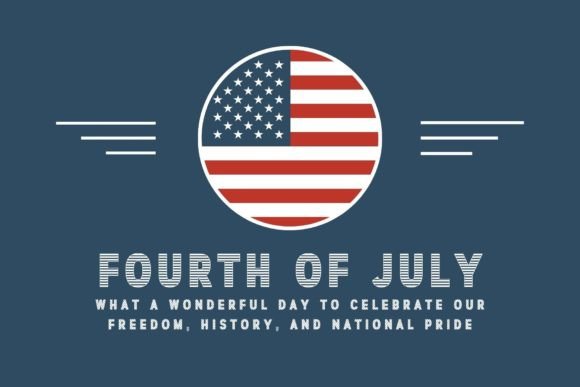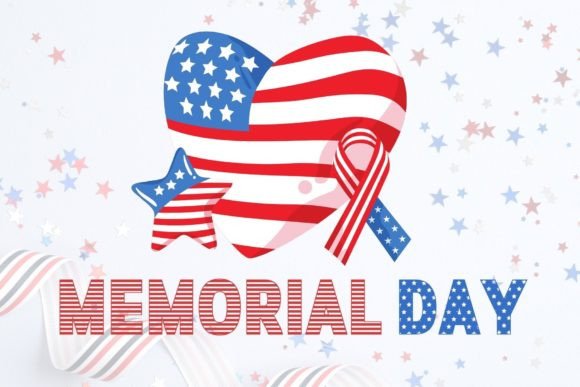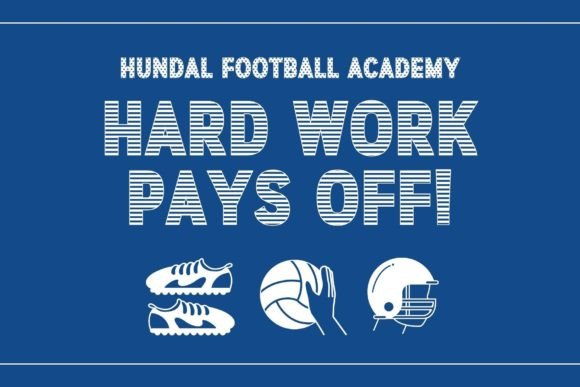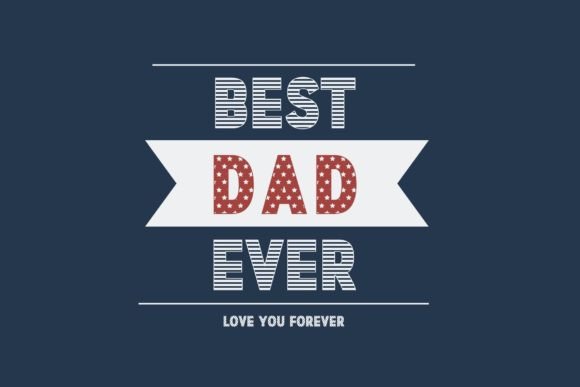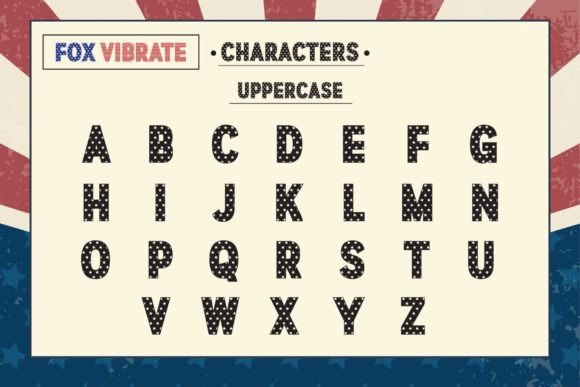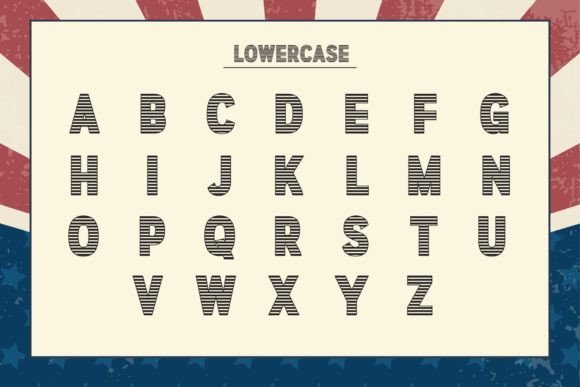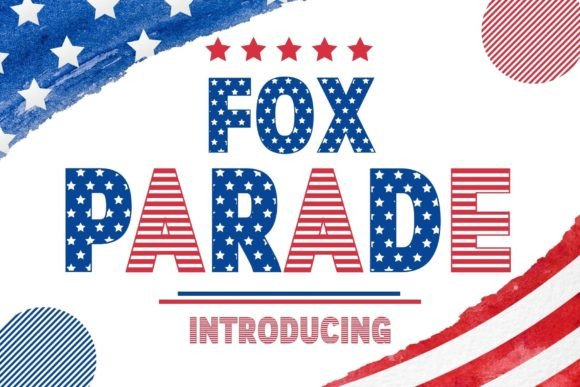
Introducing Fox Parade Font: A Star-Spangled Masterpiece for Patriotic Designs
Are you looking for a font that embodies the spirit of American culture and patriotism? Look no further than Fox Parade Font, a decorative typeface that incorporates a stars and stripes pattern into its letters. This unique and eye-catching font is perfect for designers and crafters who want to add a touch of national pride to their projects, whether it’s for Independence Day, Veterans Day, Memorial Day, or any other celebration of American heritage.
A Font that Celebrates American Culture
Fox Parade Font is more than just a decorative typeface – it’s a statement piece that instantly conveys a sense of patriotism and national identity. The stars and stripes pattern woven into each letter is a clever play on the American flag, making it an ideal choice for projects that require a bold and eye-catching design. Whether you’re creating a poster, banner, or social media graphic, Fox Parade Font is sure to make a lasting impression on your audience.
Perfect for Impactful Headlines and Signage
One of the key benefits of Fox Parade Font is its versatility. It can be used to create a wide range of designs, from impactful headlines and banners to signage and infographics. The font’s bold and playful style makes it perfect for attention-grabbing applications, while its patriotic theme ensures that your message is conveyed with a sense of national pride. Whether you’re designing for print or digital, Fox Parade Font is a great choice for any project that requires a bold and eye-catching typeface.
Why Designers and Crafters Love Fox Parade Font
So why do designers and crafters love Fox Parade Font? For starters, its unique stars and stripes pattern adds a touch of personality to any design, making it stand out from more traditional typefaces. Additionally, the font’s patriotic theme makes it perfect for seasonal or holiday-themed projects, allowing designers to tap into the emotional resonance of American culture. Finally, Fox Parade Font is incredibly easy to use, with a clean and simple design that makes it easy to pair with other fonts and design elements.
Tips for Using Fox Parade Font in Your Designs
Ready to start using Fox Parade Font in your designs? Here are a few tips to get you started:
• Pair it with complementary fonts: Fox Parade Font is a bold and playful typeface, so it’s best paired with simpler fonts that provide a nice contrast. Consider pairing it with a clean sans-serif font, such as Arial or Helvetica, to create a visually appealing design.
• Use it for headlines and titles: Fox Parade Font is perfect for attention-grabbing headlines and titles, but it can also be used for body copy and other design elements. Just be sure to use it sparingly, as too much of a good thing can be overwhelming.
• Experiment with colors: While the stars and stripes pattern in Fox Parade Font is a classic red, white, and blue, there’s no rule that says you have to stick to these colors. Experiment with different color schemes and combinations to find the perfect look for your design.
In conclusion, Fox Parade Font is a unique and eye-catching typeface that’s perfect for designers and crafters who want to add a touch of patriotism to their projects. With its stars and stripes pattern and bold, playful style, this decorative font is sure to make a lasting impression on your audience. Whether you’re designing for Independence Day, Veterans Day, or any other celebration of American culture, Fox Parade Font is a great choice for any project that requires a bold and eye-catching typeface.
Get Ready to Make a Statement with Fox Parade Font